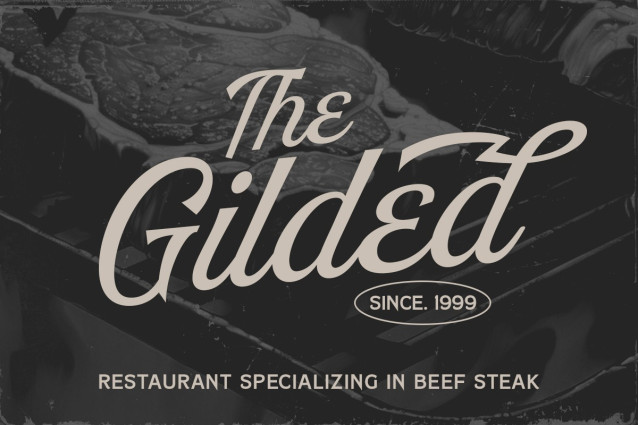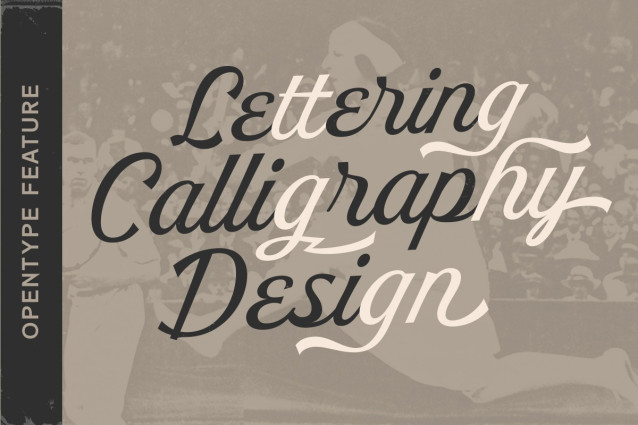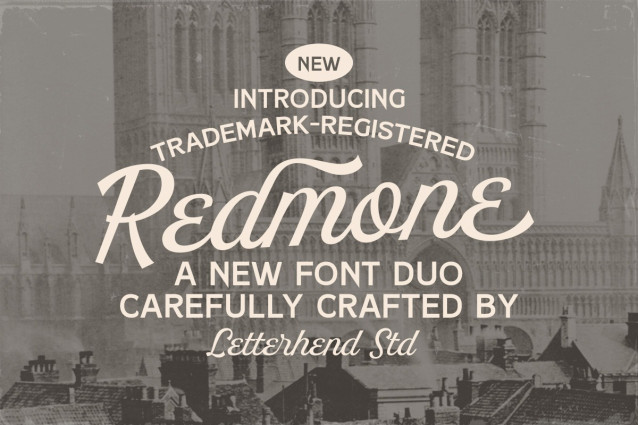
Redmone Font Duo is a carefully crafted font duo that blends an elegant script with a bold sans-serif, bringing a perfect balance of vintage charm and modern versatility. Designed with attention to detail, it evokes a dramatic yet timeless feel—like stepping into an old city full of warmth, romance, and character.